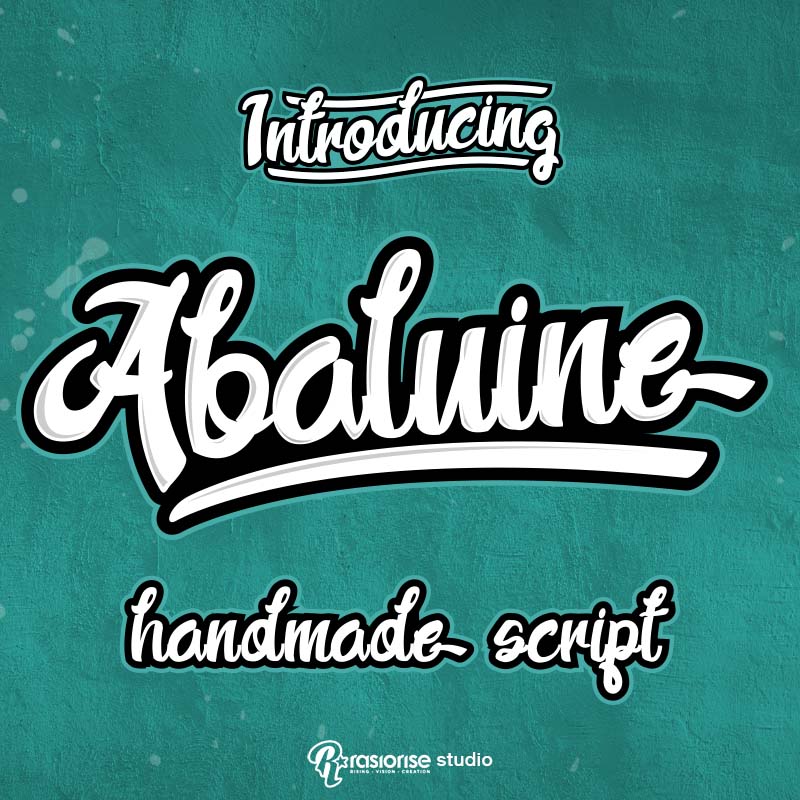
Abaluine Display Font
Designed by
rasiorise studio
Introduction for Abaluine font is font display great for Script design, handmade font great for modern lettering design. available include uppercase and lowercase and number.